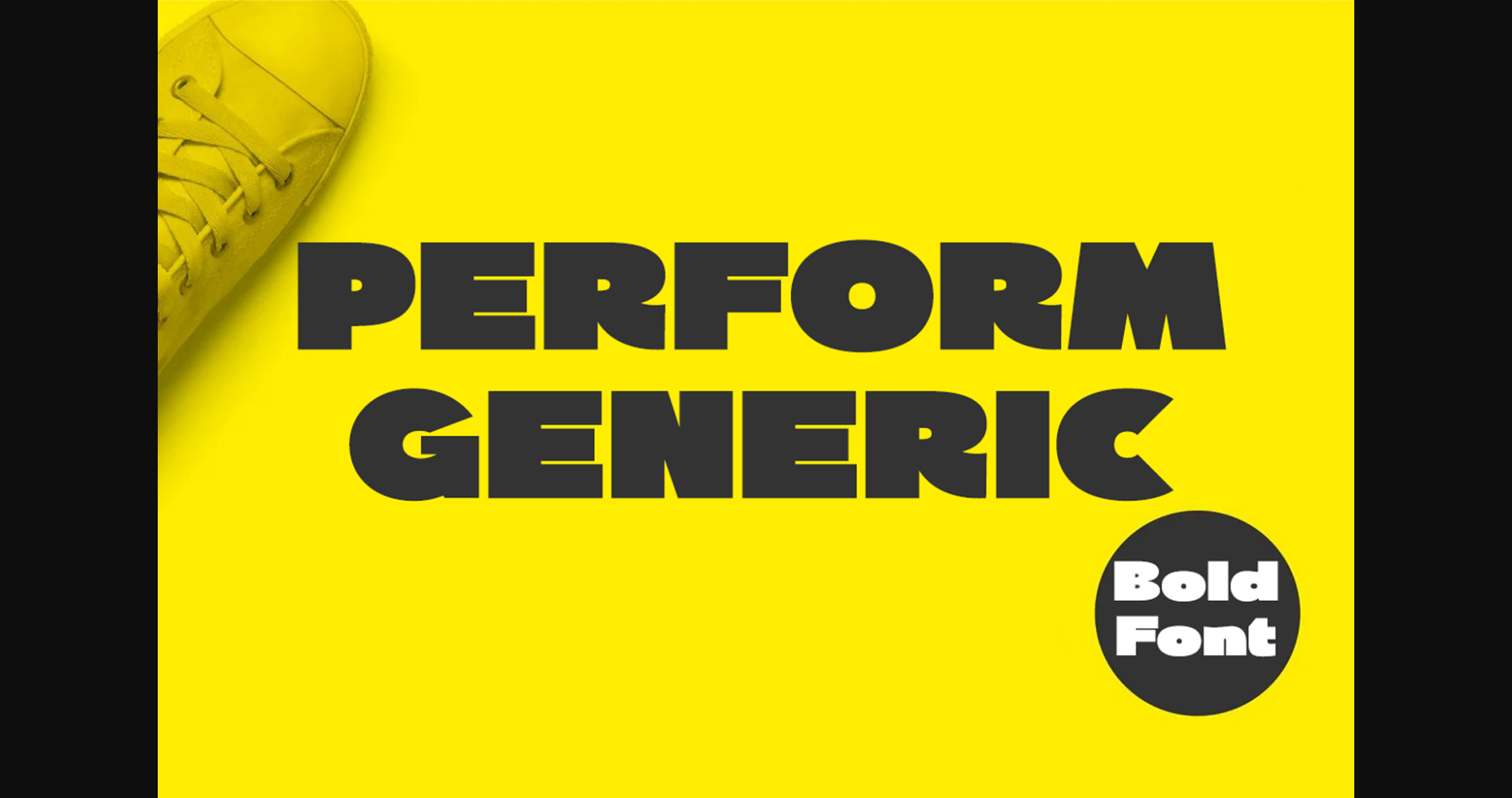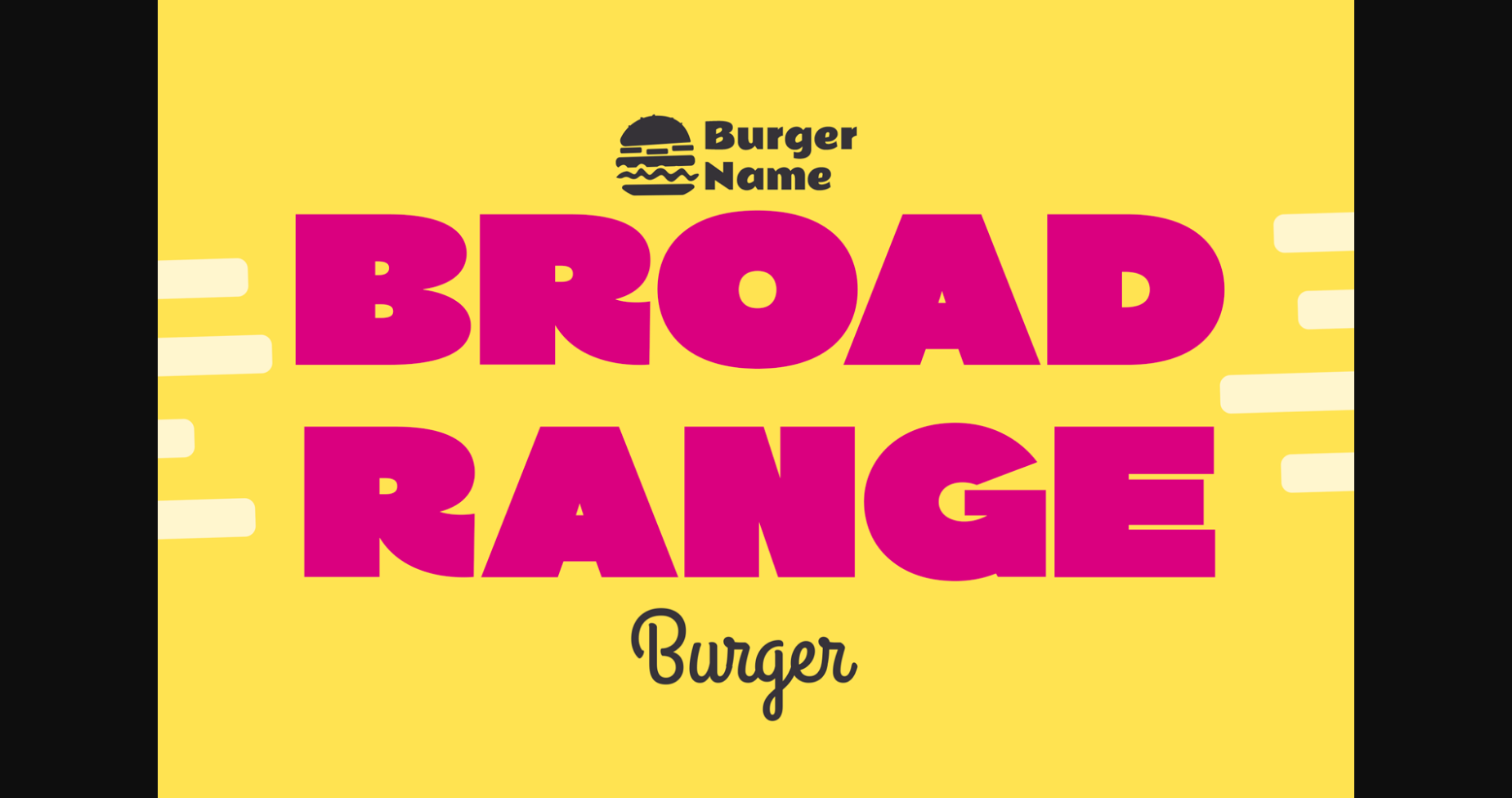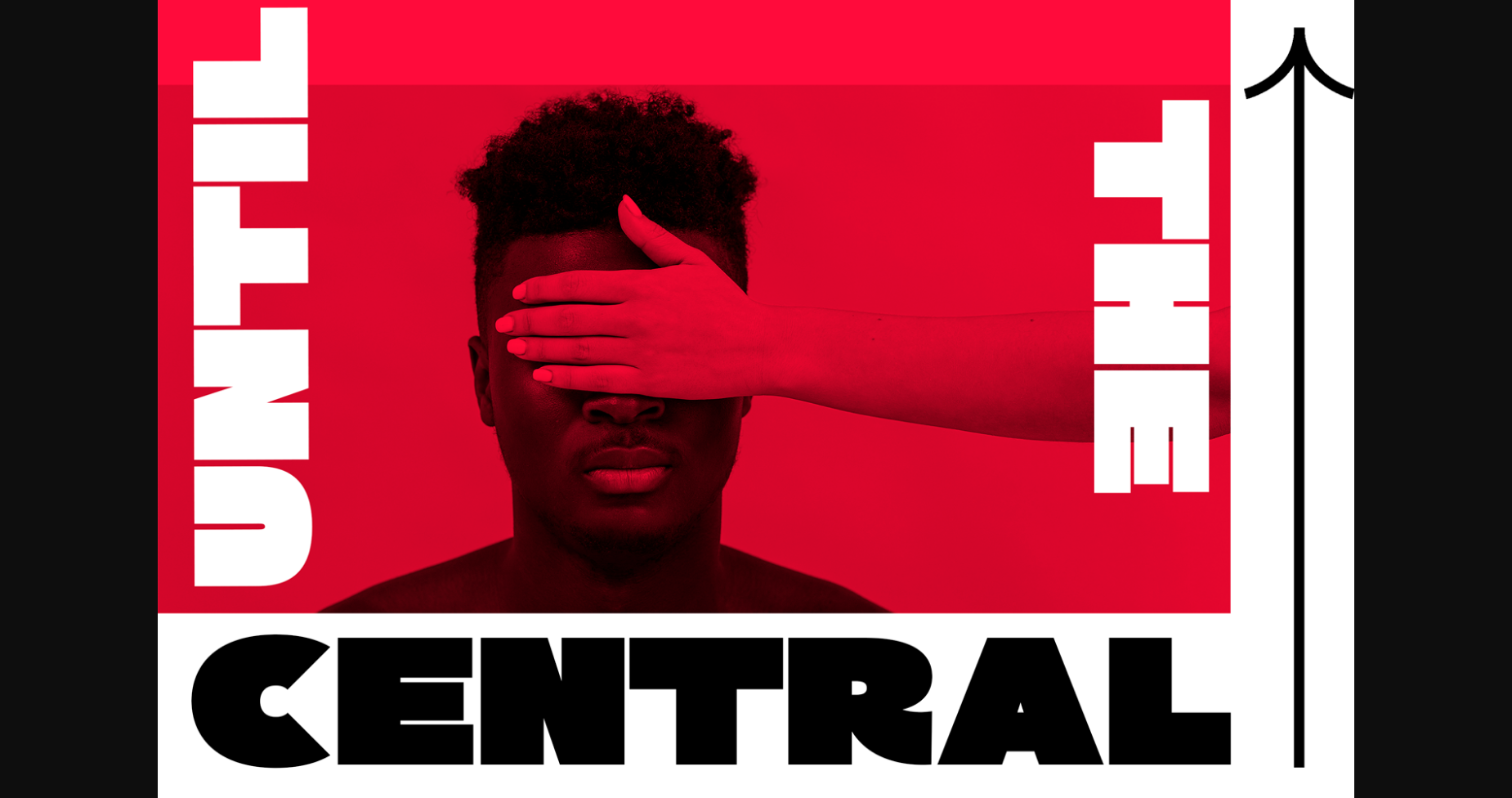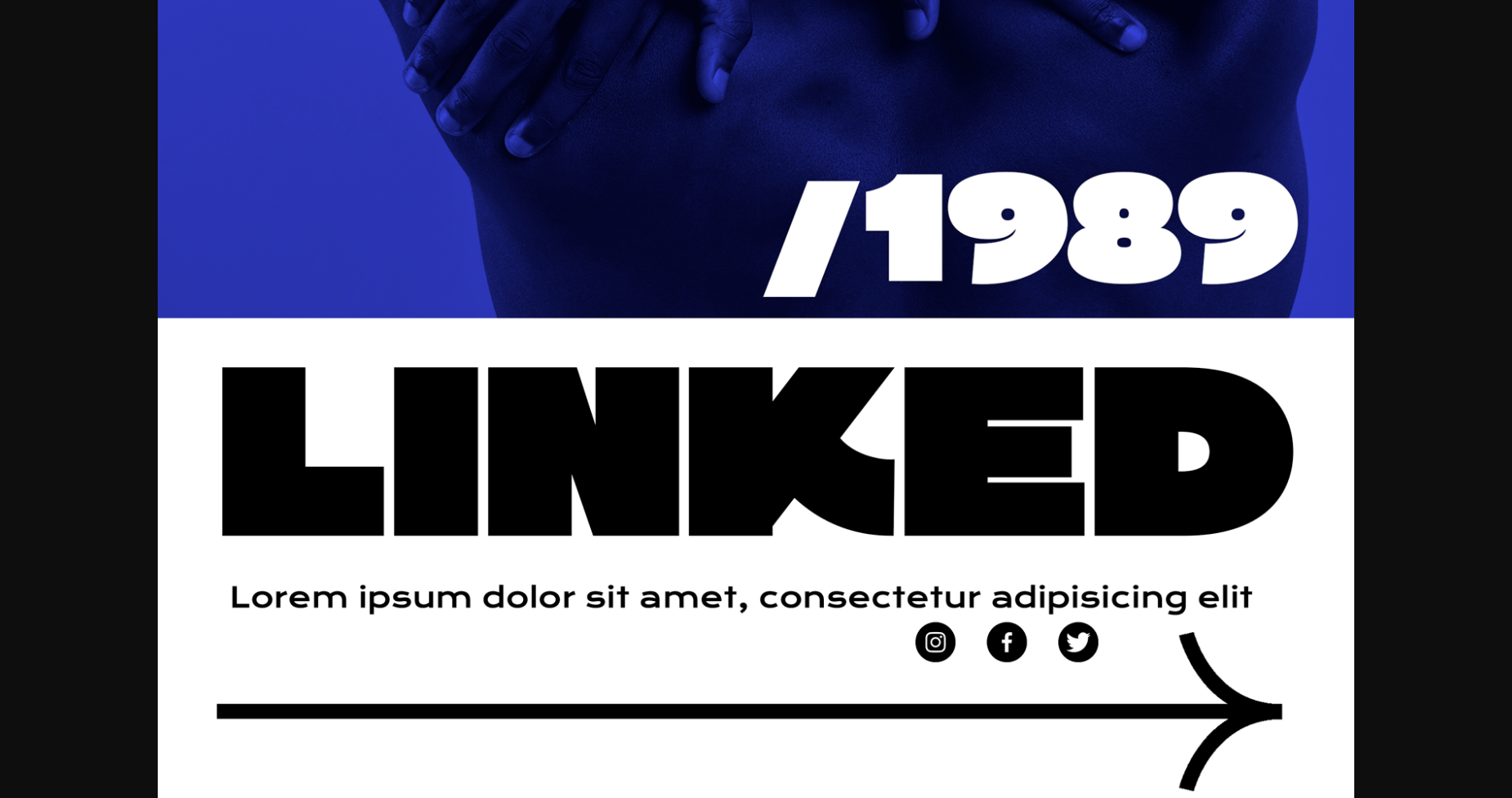
Perform Generic Font
About Perform Generic Font
Perform Generic is a bold sans serif font specially created to produce maximum visual and emotional impact. It is perfect for those of you who want to make book covers, brand logos, layout displays, headlines, or anything modern and contemporary. Add it to any of your creative ideas, and notice how they will capture everyone’s attention!